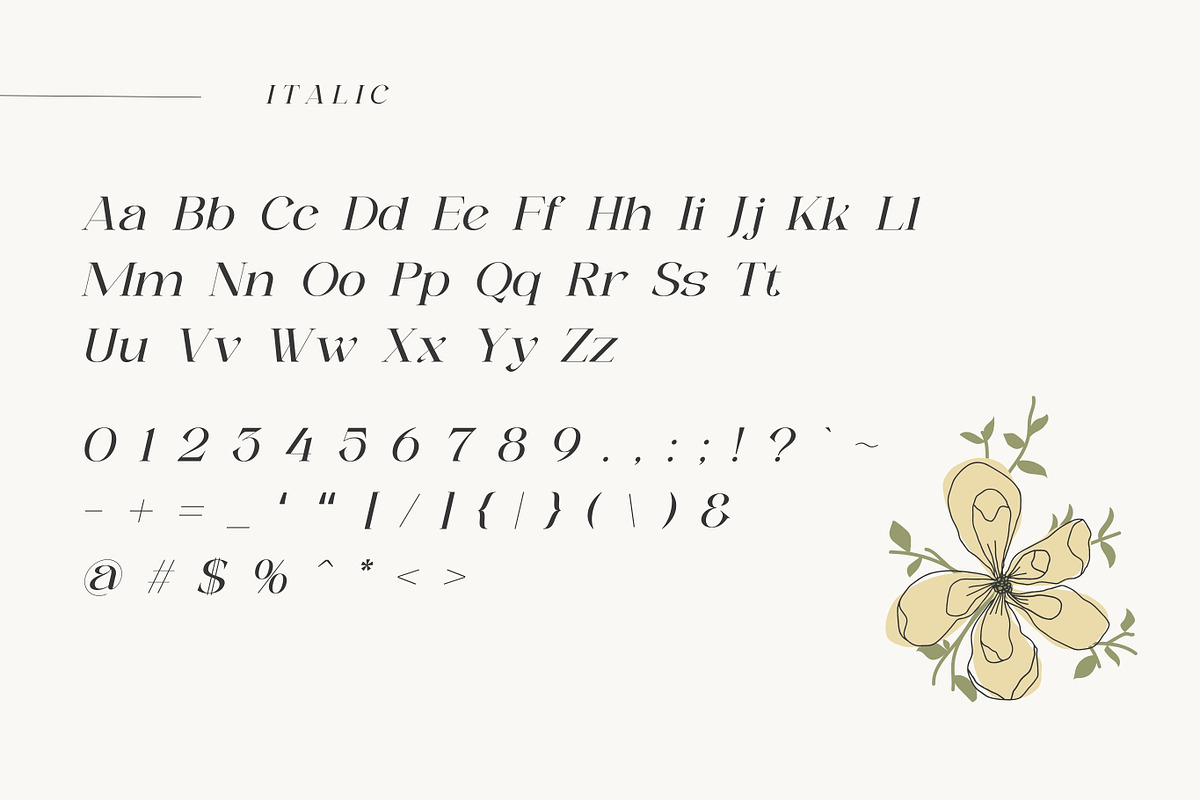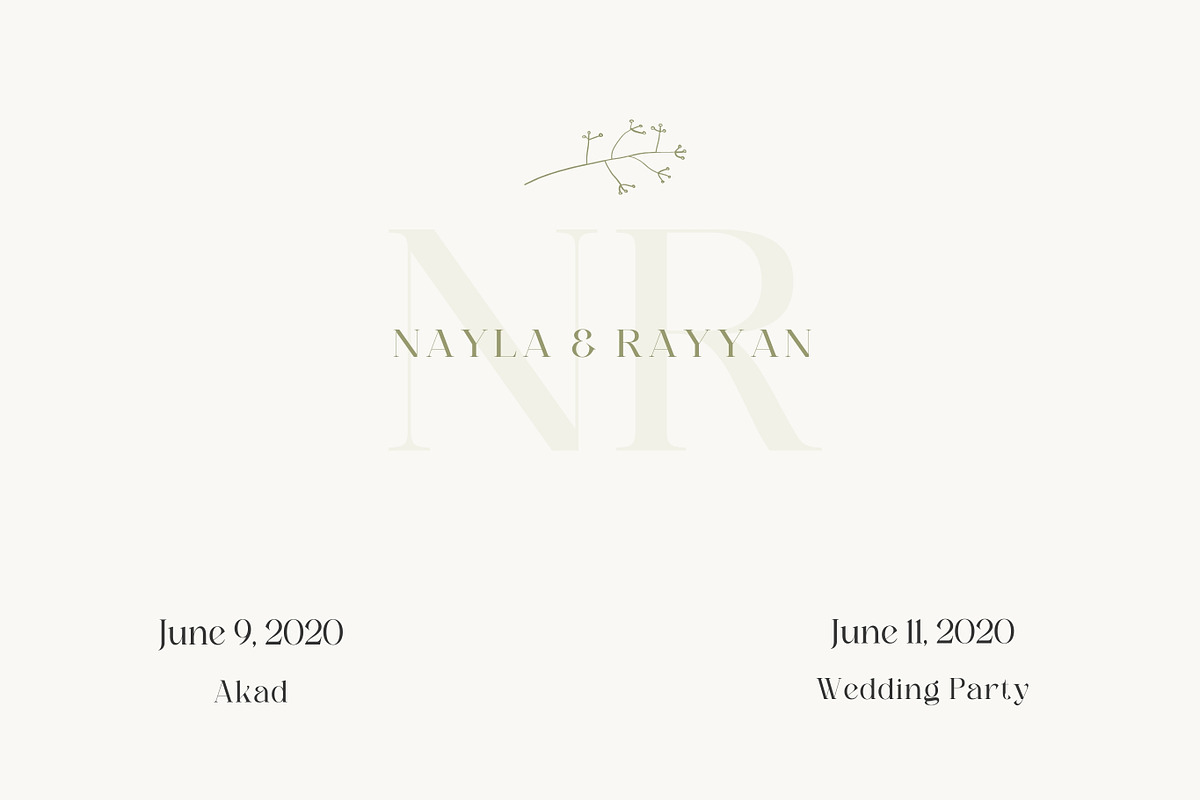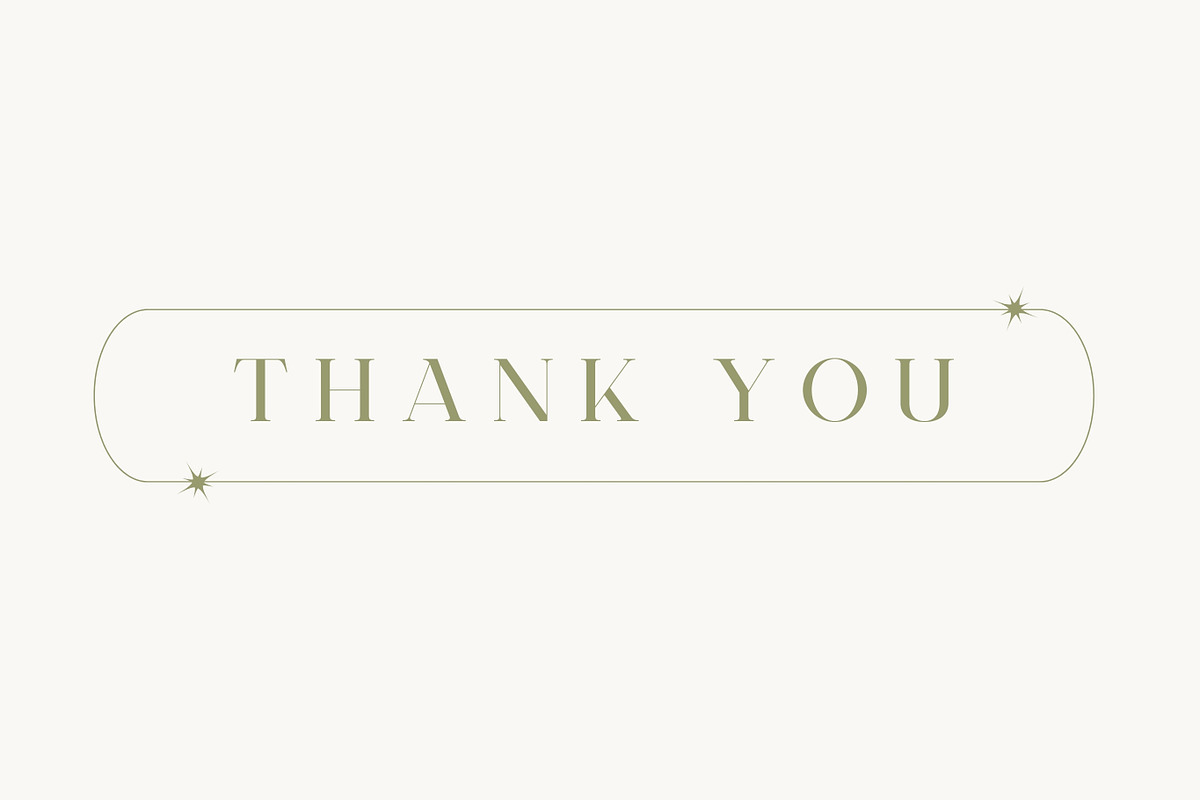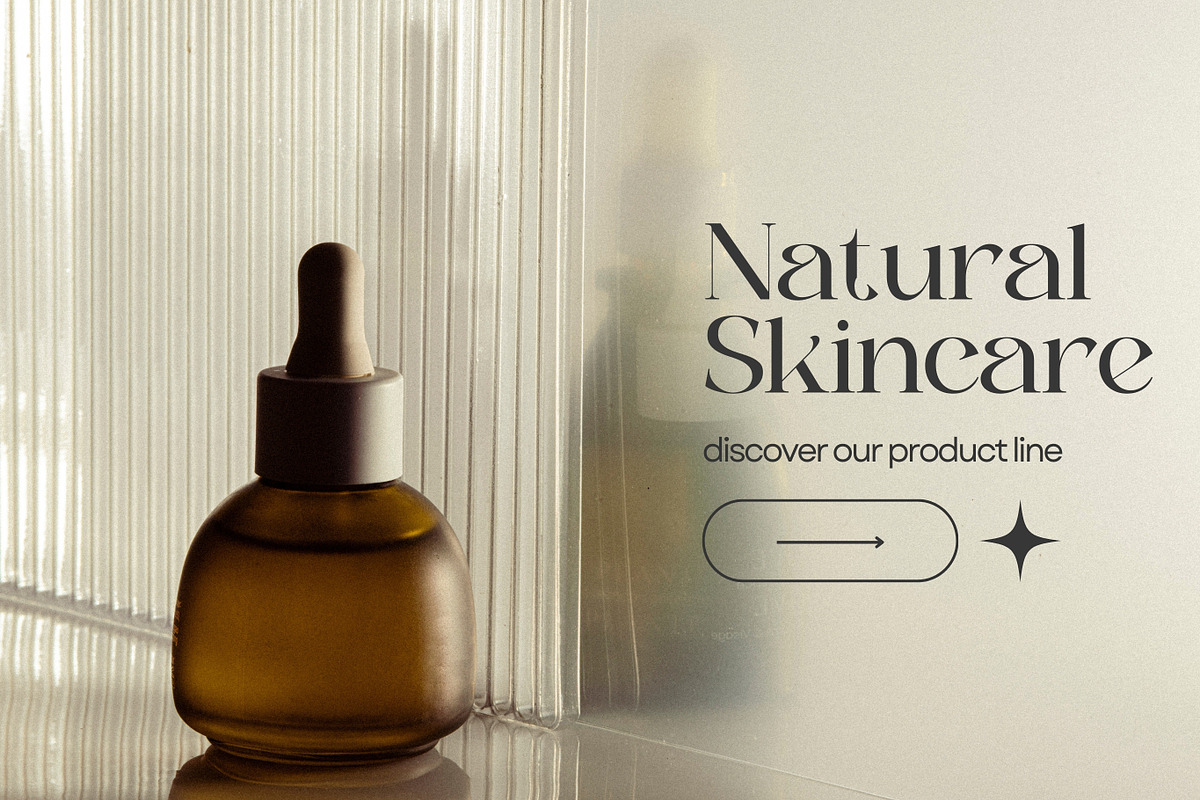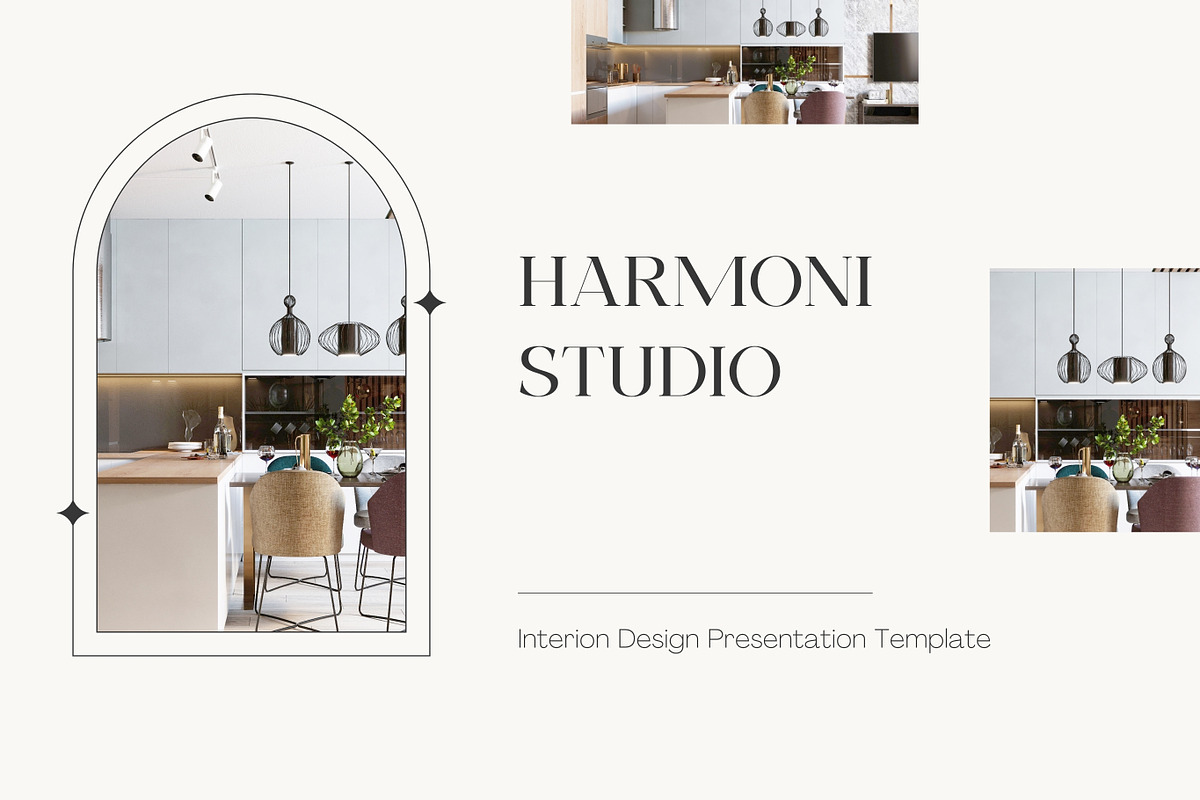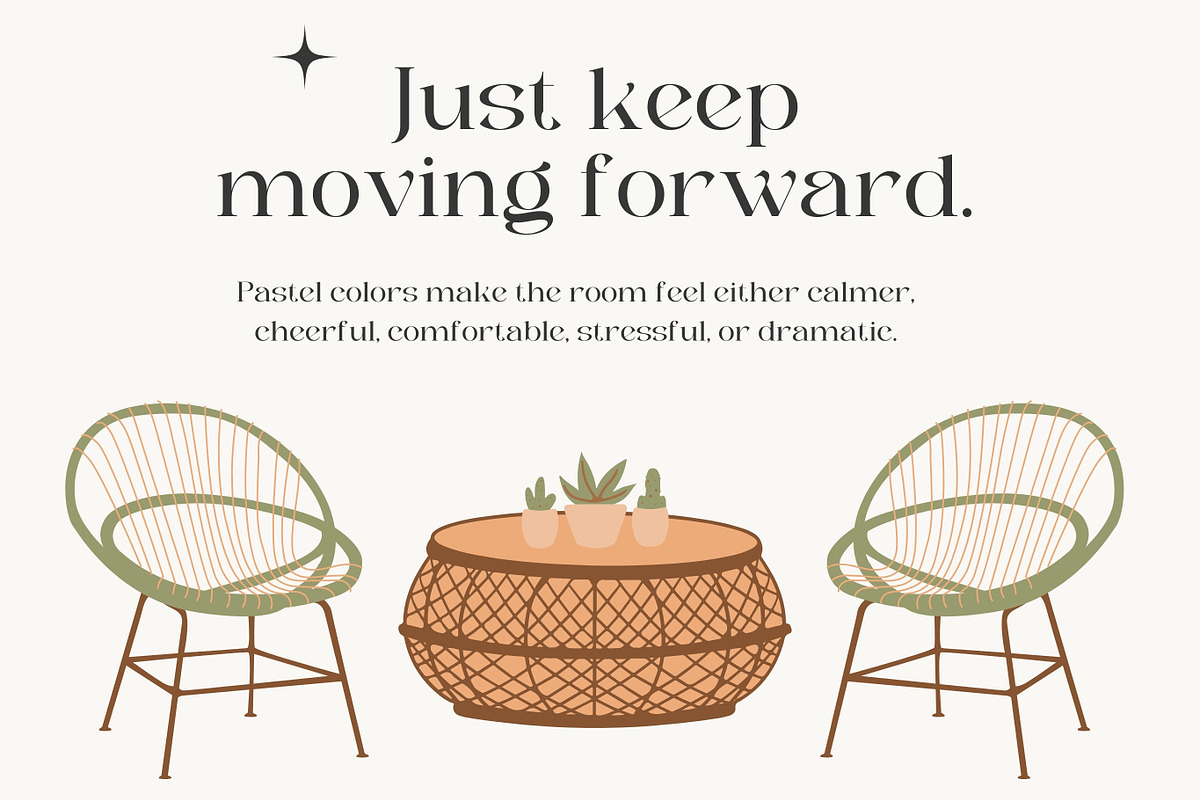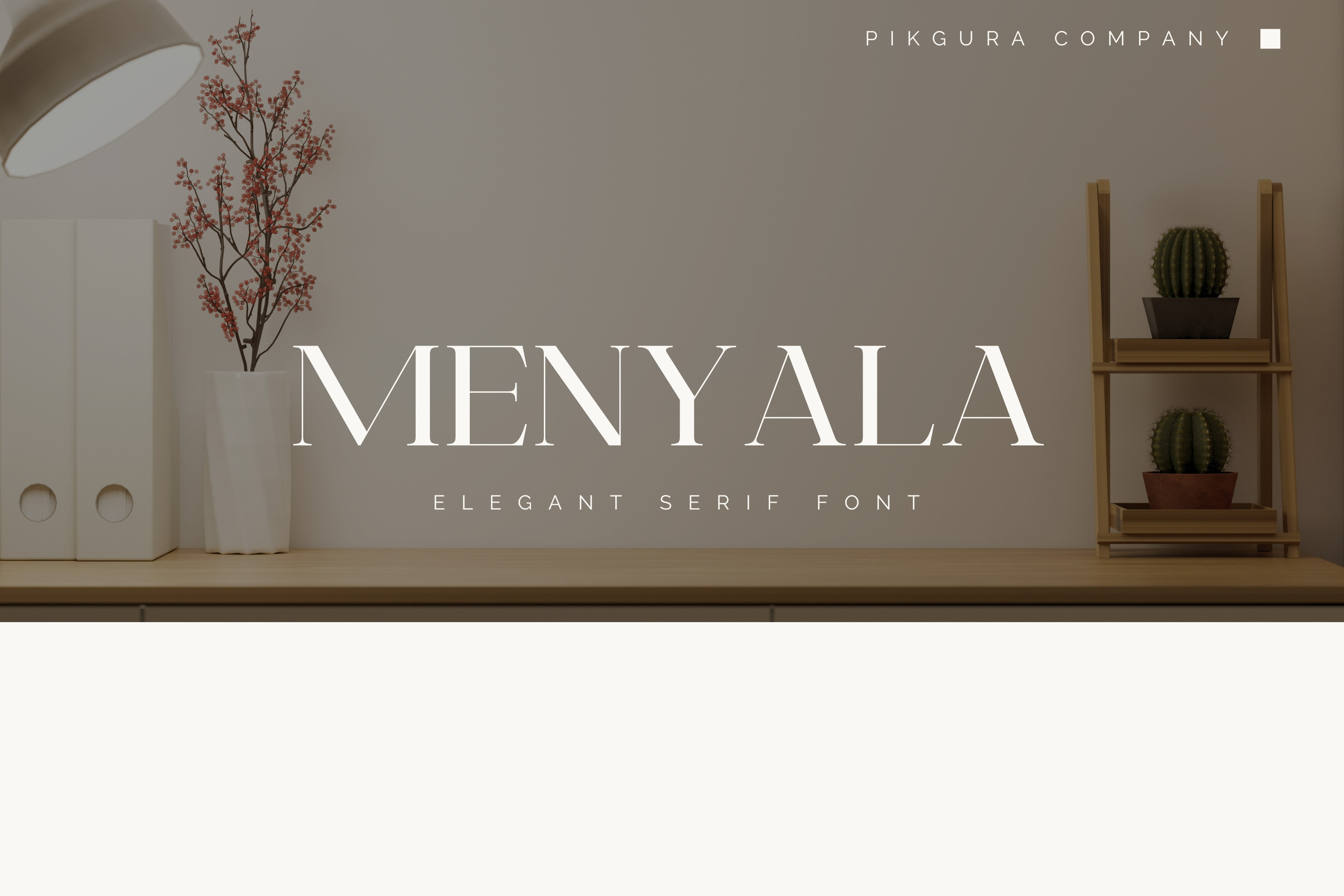
Menyala - Elegant Display Font
Menyala is a classy and modern serif font.
This typeface is designed to communicate an aesthetic that can enhance the appeal of your creative product. Perfect for feminine logo marks, fashion mastheads & editorial design. And this font includes with matching italic.